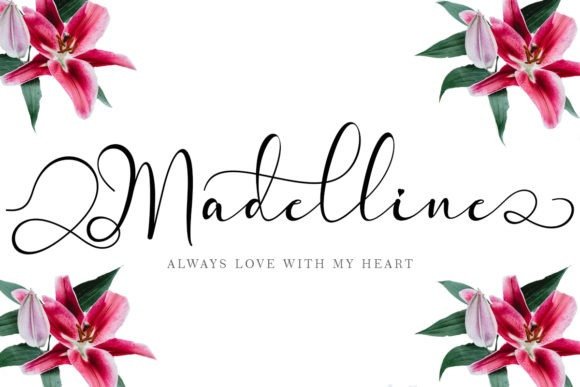
Madelline Calligraphy Font
Introducing Madelline Calligraphy Font is a Modern script typeface that comes with a very beautiful and elegant character change, decorated in classic copper with a modern twist, designed with high detail for an elegant style. Madelline is designed and shared by yogaletter6. It’s a font that is very elegant, beautiful and has a romantic impression. It is suitable for beautifying all types of your work.
This font is very unique and has high quality. It is suitable for wedding designs, branding, invitations, signatures, labels, logos, promotion of your business, creating social media status, quotes and more.